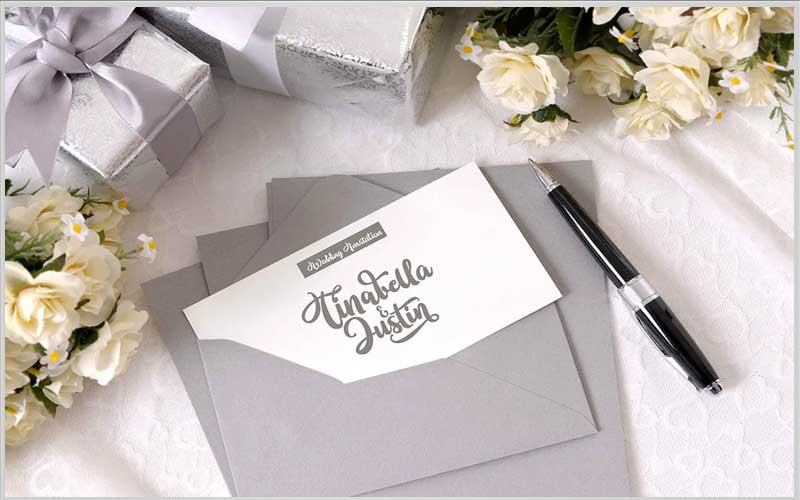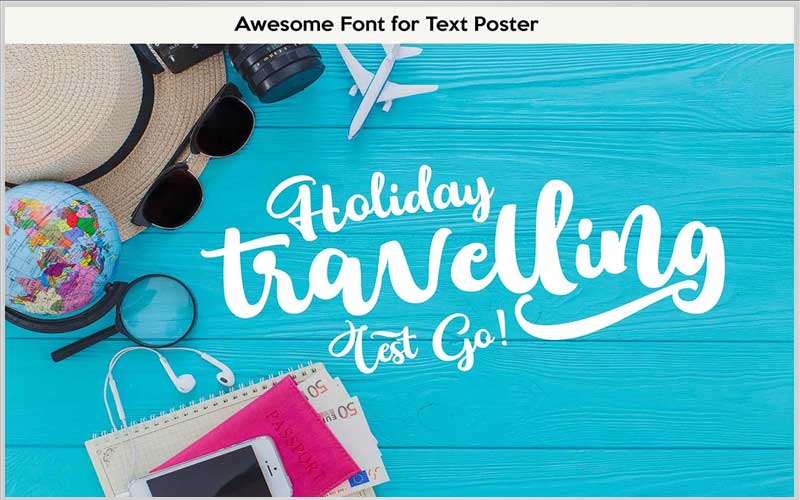
Bellatine Pro Script Calligraphy Font Free is an artistic and extremely beautiful font that anyone should not ignore for their personal creation.
In fact, this premium font was designed and shared by patternidea. It is a handwritten script font with soft lines and is extremely attractive. That’s why this font is especially popular for designing wedding invitations, book covers, stationery, and more… It really will make your projects so much more sparkling.
Bellatine Pro Script Font